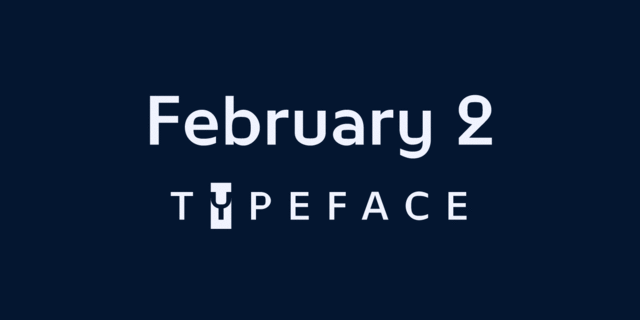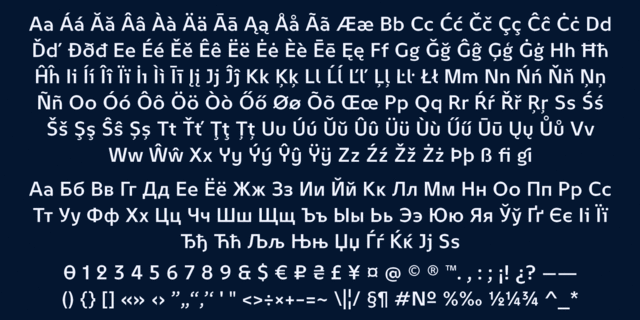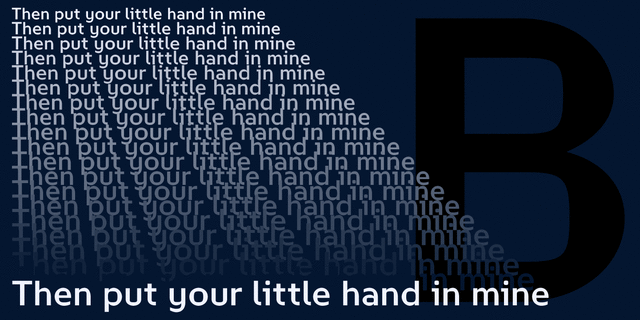
February 2 (2 fonts)
The February 2 font was developed on the experimental principle of constructing grotesques. The font combines the contrast between an oval and a rounded rectangle. The developed modular style adds a dynamic character to it. It is ideal for many projects where expressive text is required. Supports extended Latin and Cyrillic. The font was created in 2019. Type designer Igor Kosinsky.
Associations for font family February 2Typeface personality and character:
urban, modern, accurate, flat, clear, crisp, cutting, solid, globalized, clever, globalistic, engineering, schematic, space, convincing, practical, pragmatic, technically, urbanistic, logical, smooth, stable, static, serious, automatic, artificial, cold, machine, technogenic, computer, cosmopolitan, straight, original, industrial, iron, steel
society, city, transport, airport, Metro, navigation, innovations, design, device, engineer, equipment, science, space, Internet, mobile communications, gadget, IT specialist, IT, technology, scheme, x-ray, android, code, constructor, automation, ГОСТ, computer, electronics, programming, hardware, industry, game, robot, machine tool, tool, hacker, computer game, astronomy Typeface exhibits stylistic traits: